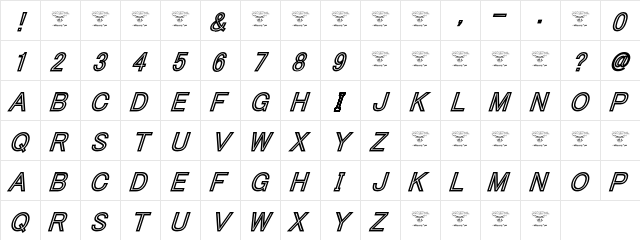
Complete Tha Cool Kidz Black Italic glyph index. Displaying only characters natively supported by Tha Cool Kidz Black Italic font.
Tha Cool Kidz Black is a composed and adaptable typeface that performs quietly and consistently across a wide range of design contexts. The slanted form adds forward momentum and visual energy.
Pro Tip: Use Tha Cool Kidz Black for emphasis, pull quotes, and subheadings where its slanted energy can add rhythm to the layout.